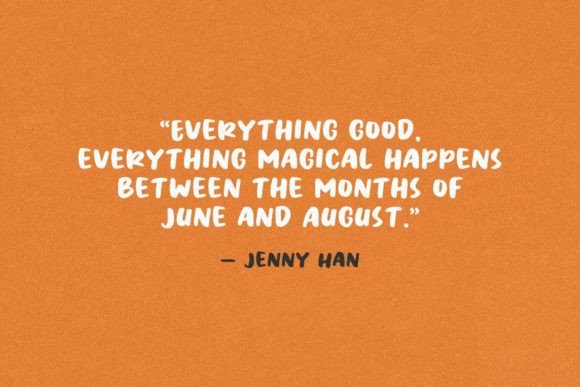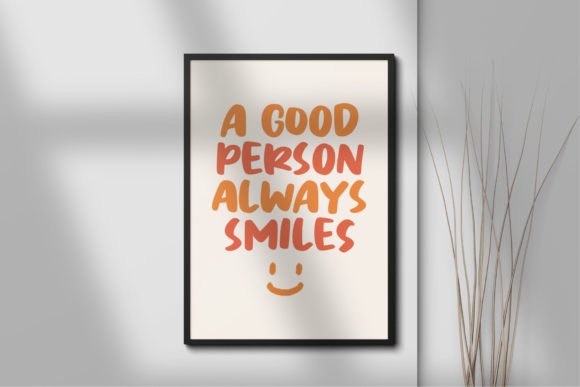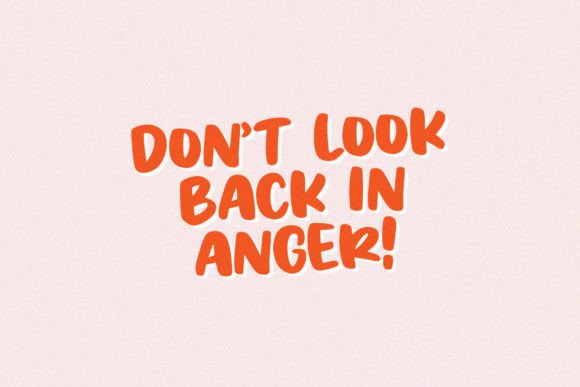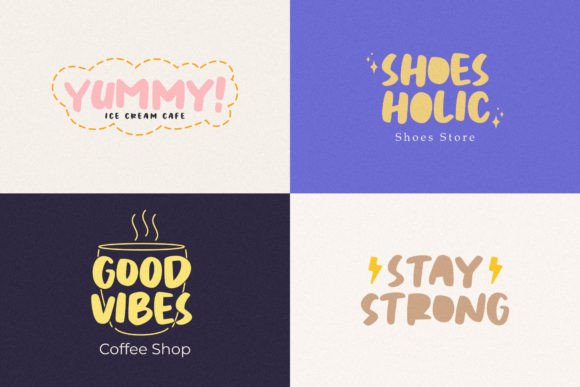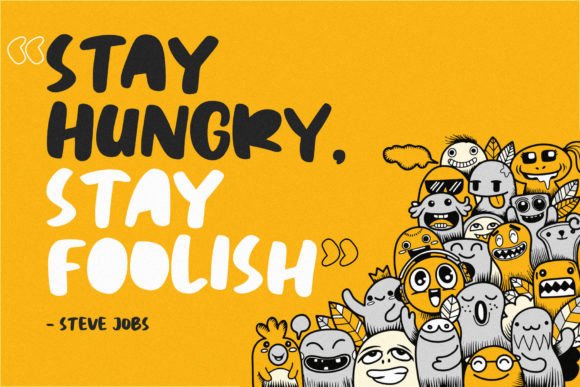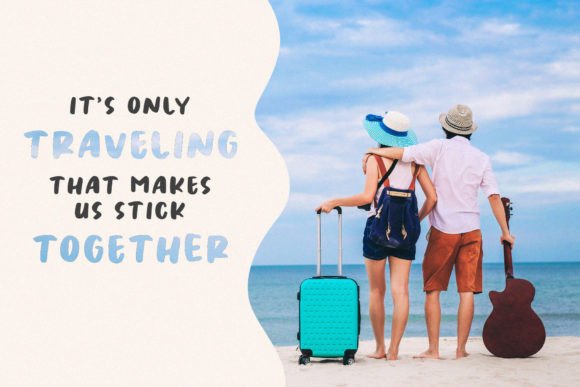
Unleash Your Creativity with Chicken Steak Font
Remember that moment when you stumbled upon the perfect font to bring your design project to life? It’s like finding the missing piece of a puzzle – everything just falls into place. That’s exactly what happens when you discover the Chicken Steak Font, a delightful handmade font that’s sure to add some personality to your kids’ design and branding projects.
This charming font comes in two styles: regular and solid, giving you the flexibility to choose the perfect look for your project. With its cute and quirky letters resembling chicken steaks, the Chicken Steak Font is the perfect way to add a touch of fun and whimsy to your designs, from logos to labels and stickers.
Chicken Steak Font Key Features
- Unique Characteristics: The font features a unique blend of modern and vintage elements, with a distressed texture that gives it a worn, rustic feel.
- Font Style: Chicken Steak Font is a sans-serif font with a bold, energetic feel, making it ideal for use in headings, titles, and other display text.
Chicken Steak Font Review
As a designer, I was excited to dive into the Chicken Steak Font and see what it had to offer. Here’s my honest review.
- The font’s unique blend of elegance and playfulness makes it perfect for creative projects.
- The bold and italic styles are well-executed, adding depth to the font’s overall character.
- The font’s open-source nature makes it accessible to designers of all levels.
- The font’s consistency can be a bit off at smaller font sizes, which may require some adjustments.
- The font’s lack of support for certain languages may limit its use in multilingual projects.
- The font’s design, while unique, may not be to everyone’s taste.
While the Chicken Steak Font has some limitations, its unique character and open-source nature make it a great addition to any designer’s toolkit. With some careful selection and adjustment, this font can be a real showstopper in the right project.
The Chicken Steak Font is ideal for:
- Food and restaurant branding
- Casual and playful designs
- Men’s and women’s fashion brands
Alternatives to “Chicken Steak Font”
Great Vibes is a beautiful, handwritten font ideal for creating a friendly and approachable atmosphere. It’s perfect for designs that require a casual, relaxed feel, such as social media graphics, blog posts, and product packaging.
Compared to Chicken Steak Font, Great Vibes has a more elegant and refined look, making it suitable for a wider range of designs. While Chicken Steak Font has a more playful and rustic feel, Great Vibes is more versatile and can be used in various contexts.
Alex Brush is a elegant, handwritten font that exudes sophistication and luxury. It’s ideal for designs that require a touch of elegance, such as high-end product packaging, wedding invitations, and luxury brand identities.
Compared to Chicken Steak Font, Alex Brush has a more refined and sophisticated look, making it suitable for high-end designs. While Chicken Steak Font has a more playful and rustic feel, Alex Brush is more elegant and luxurious.
Q: What is the recommended font size and line height for optimal readability with Chicken Steak Font?
For optimal readability, we recommend using the Chicken Steak Font at a minimum size of 14px and a line height of 1.5 to 2 times the font size. This will ensure clear and legible text, particularly in digital media. You can adjust these settings based on your specific design requirements and audience preferences.